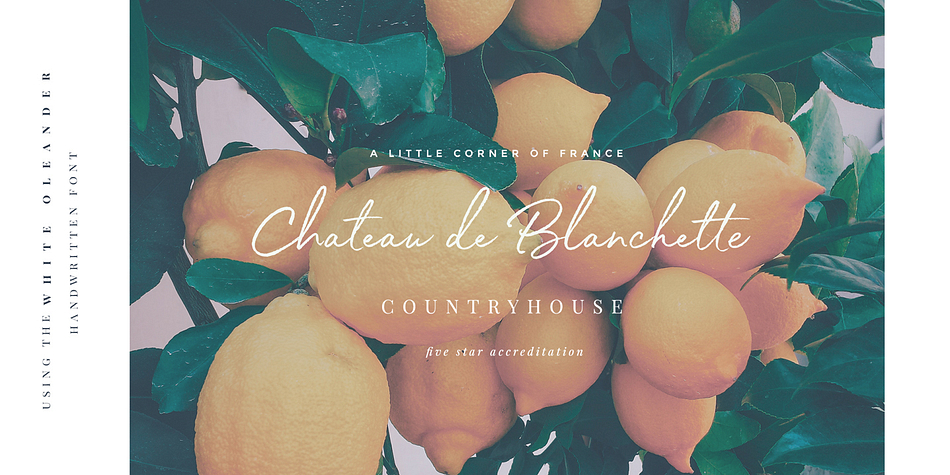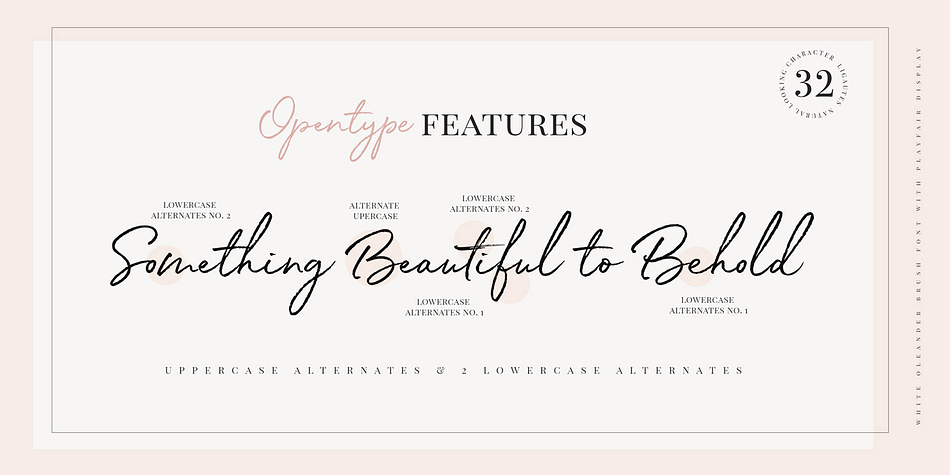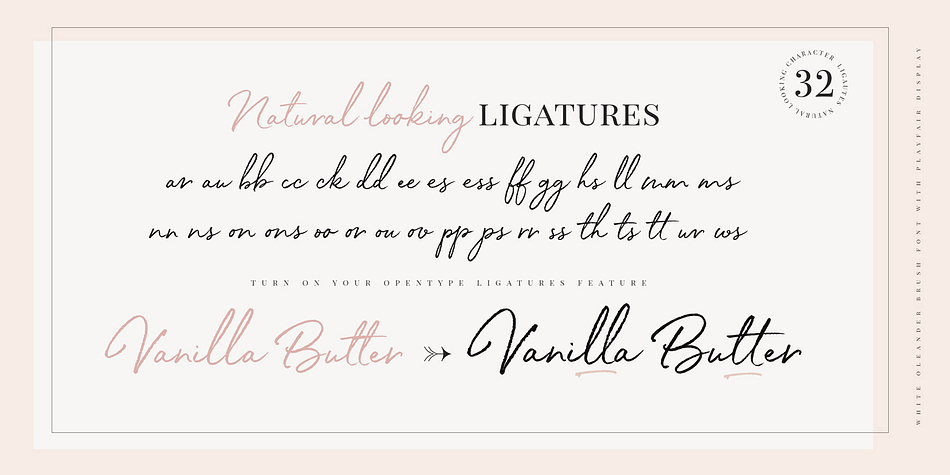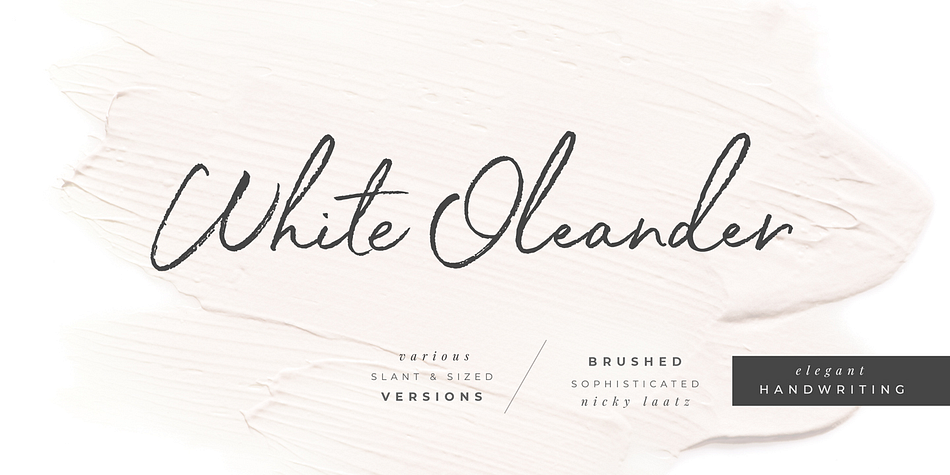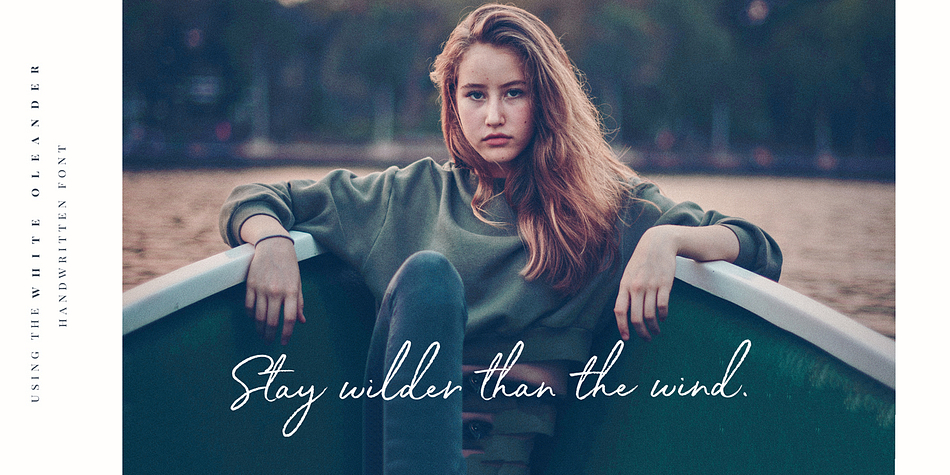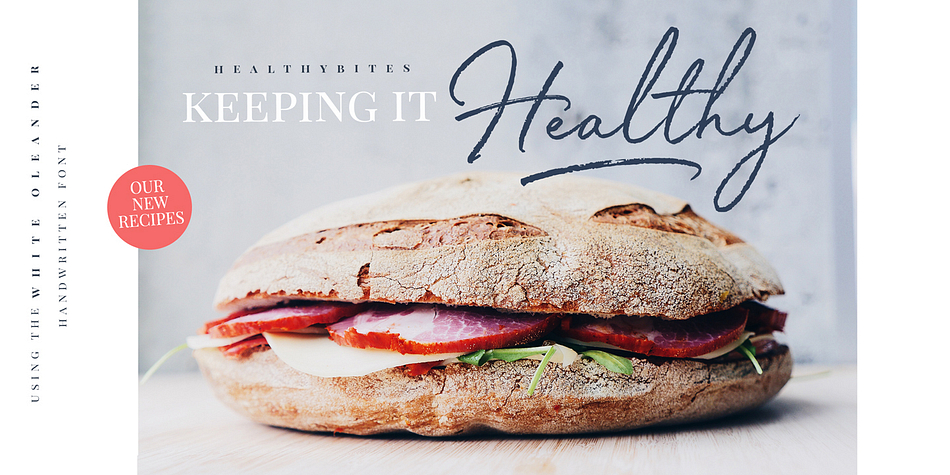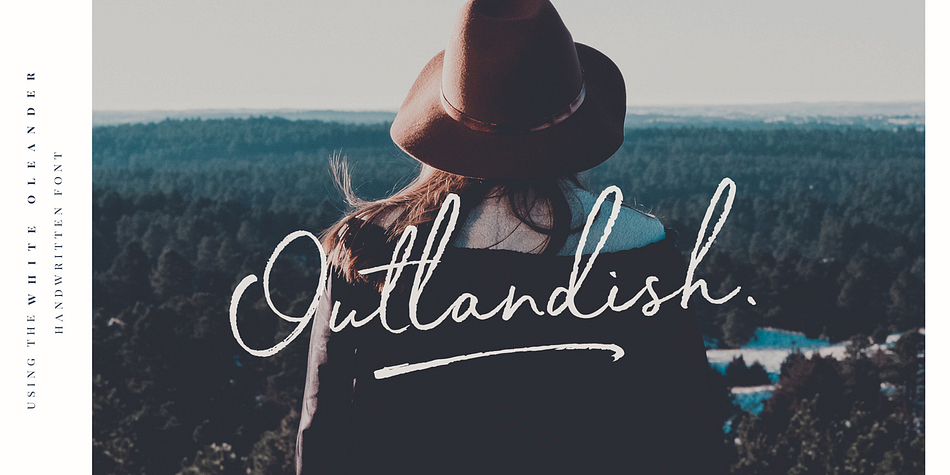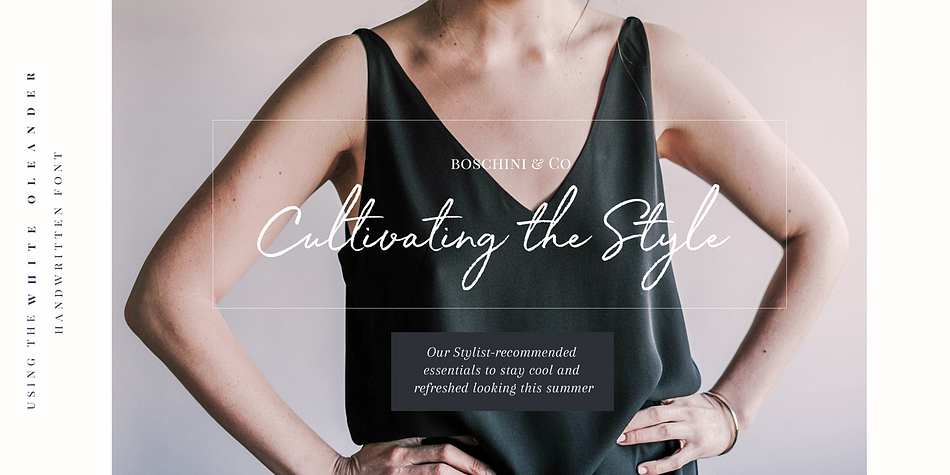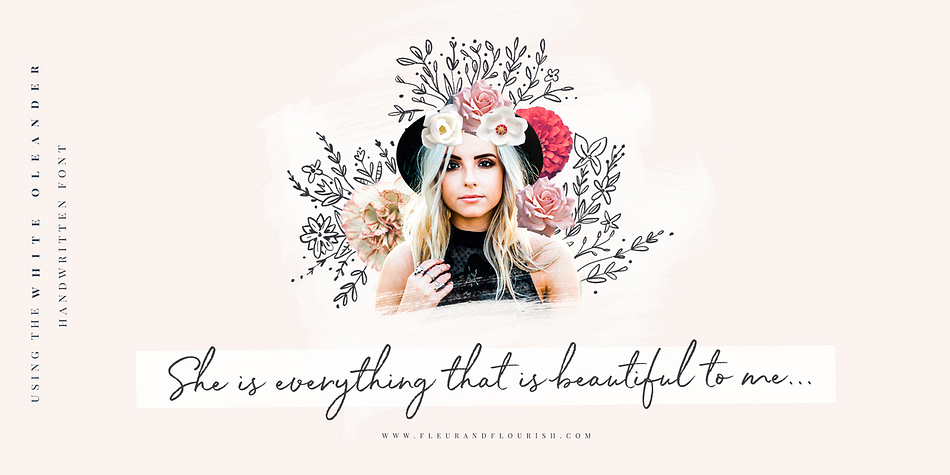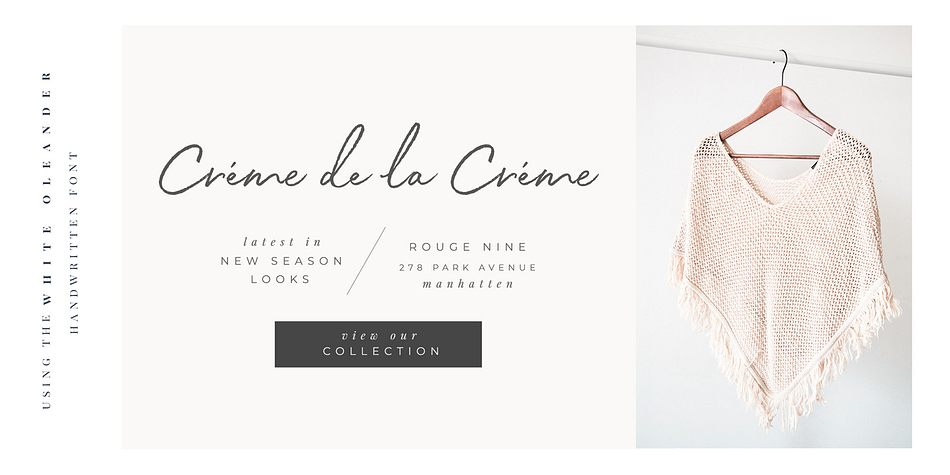
Designed by Nicky Laatz, White Oleander is a modern calligraphy and script font family. This typeface has four styles and was published by Nicky Laatz.
White Oleander is a stylish handwritten font, with subtle texture imperfections, to appear as authentic as possible while remaining clearly legible in your projects.
With four versions of the font: Regular, Slanted, Upright, and Compact, each with a slightly different feel, White Oleander is a truly versatile font — displaying a sophisticated, casual, and even playful tone — depending on which style you use.
A comprehensive set of upper and lower case letter alternates, as well as a second set of lower case alternates is accessible via its handy Opentype features.
White Oleander also features 32 natural-looking ligatures, along with ten swooping swashes, to add authentic variation to your design.